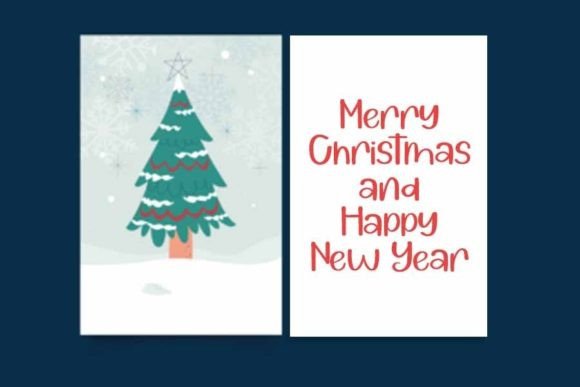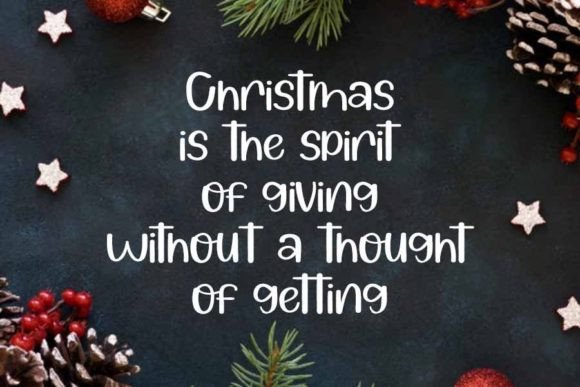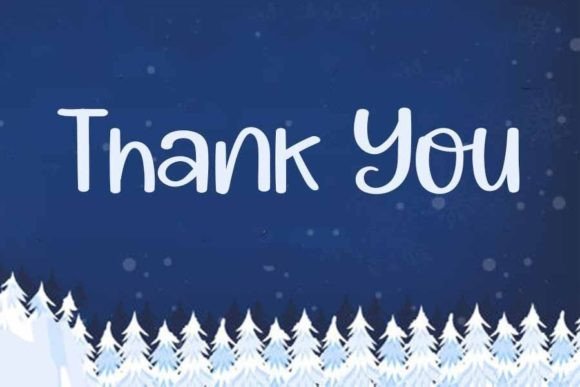
Christmas Night Font
About Christmas Night Font
**Christmas Night Font: Where Playfulness Meets Festive Joy**
Introducing “Christmas Night,” a simple and playful handwritten font that brings a joyful and bright vibe to your creative projects. With its playful and uncomplicated style, this font is designed to make each of your designs come alive with festive joy. Let “Christmas Night” infuse your creations with a sense of playfulness and celebration.
At the heart of “Christmas Night” is a simplicity that radiates a festive joy. The font’s handwritten characters exude a playful charm, making it an ideal choice for designs that seek to capture the cheerful spirit of celebration. “Christmas Night” is not just a typeface; it’s a design element that transforms your text into a vibrant and lively visual experience.
The festive joy of “Christmas Night” opens the door to a world of creative possibilities. Picture it enhancing holiday greeting cards, adding a playful touch to festive posters, or becoming the signature font for projects that call for a joyful and uncomplicated vibe. This font becomes a versatile companion that aligns seamlessly with the essence of your creative vision.
The adaptability of “Christmas Night” makes it suitable for a variety of applications across different mediums. Whether you’re crafting digital designs or diving into hands-on DIY projects, this font becomes the dynamic brushstroke that elevates your work and adds an element of festive cheer.
In conclusion, “Christmas Night” is not just a font; it’s an invitation to embrace playfulness and festive joy. Embrace it, and watch as your designs come alive with a cheerful touch. With “Christmas Night,” every letter becomes a brushstroke in the canvas of creativity, leaving an indelible mark of celebration on your design journey.